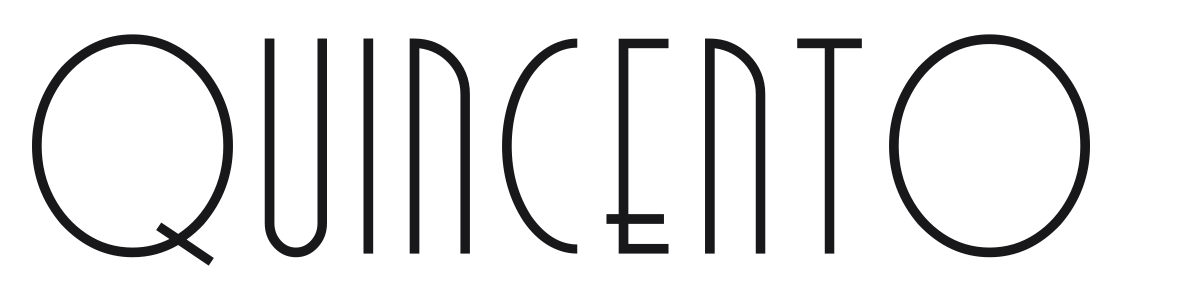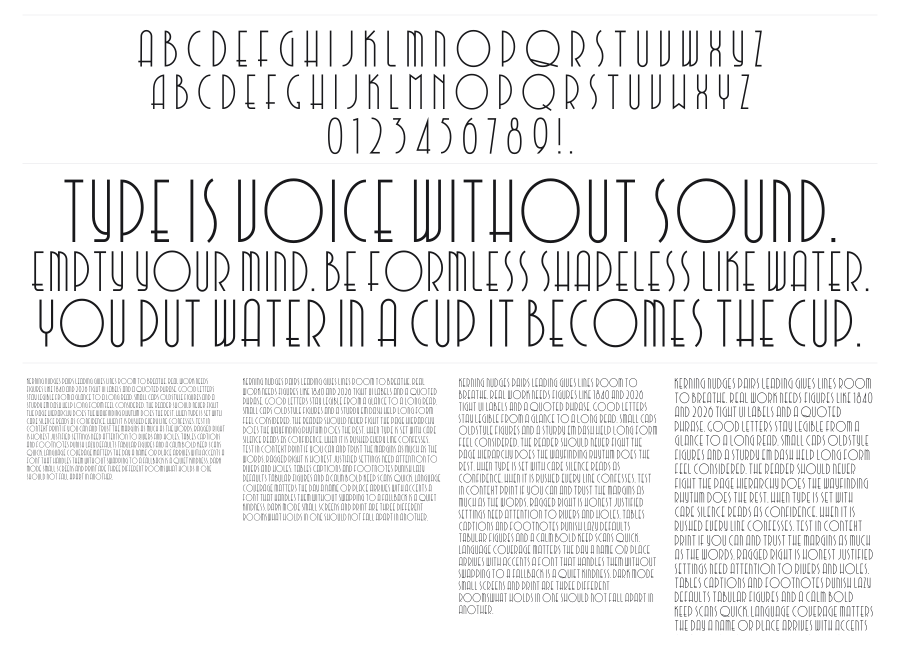
Quincento
Quincento is an Art Deco display font inspired by the geometric glamour of 1920s design, blending sharp right angles with smooth circular curves in a single tall, condensed form. The interplay between hard corners and soft rounds gives it a distinctive tension that feels both structured and fluid. Strong at large sizes for posters, restaurant branding, event invitations, or any project channeling Gatsby-era energy.